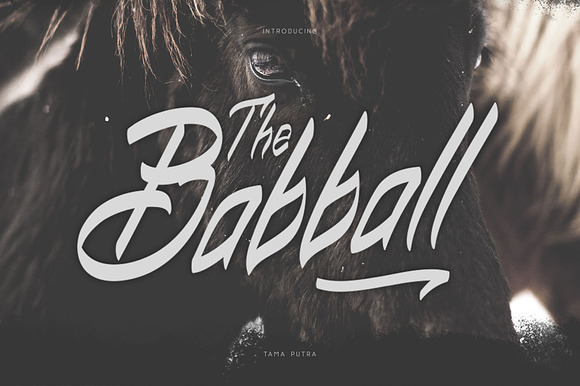
Babball Font
Babball is a handwritten and display font duo.
Character Set A-Z (Uppercase & Lowercase)
Accents (Multilingual characters)
This typeface can be put to many uses:
Babball font duo is suitable font for creating beautiful things and many creative work.
- It includes a full set of uppercase and lowercase letters as well as multi-lingual and currency support, numerals, punctuations, alternates.
- Character Set A-Z (Uppercase & Lowercase)
- Standard Ligatures
- Babball Display Regular
- Babball Regular
Babball Font by Vacatype Co. fits naturally into Branding, posters, packaging, typography.